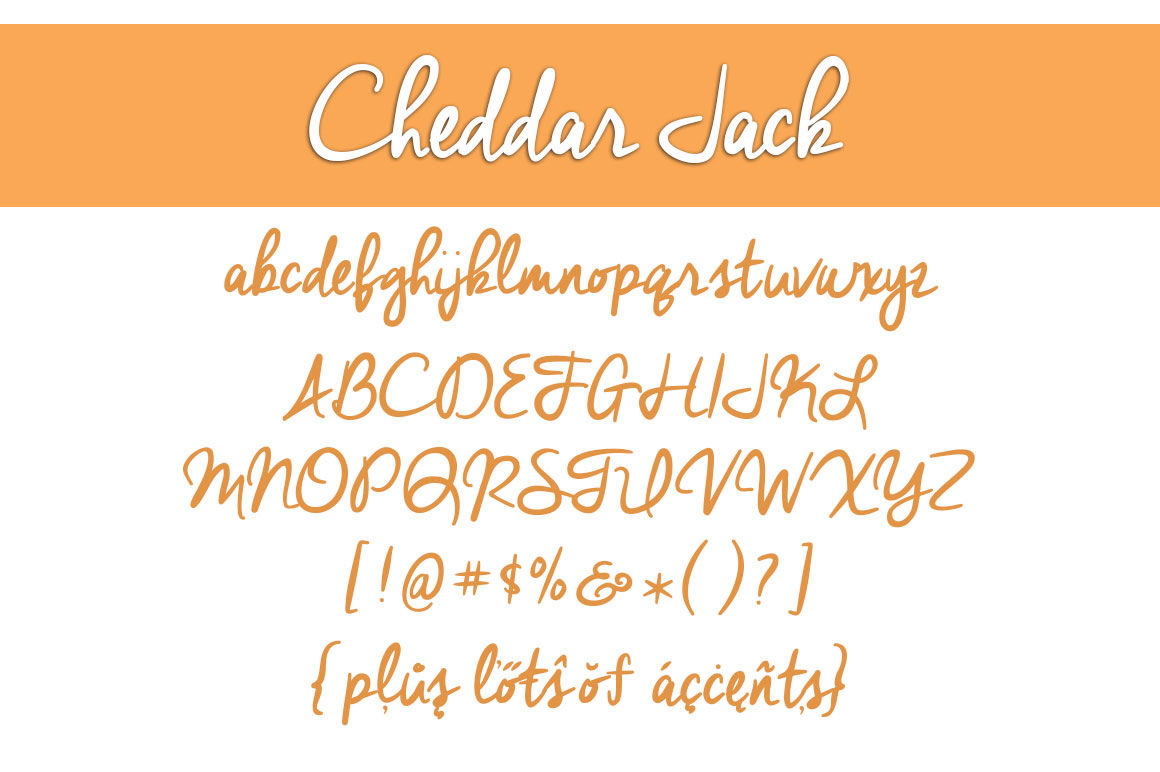
Introducing the Cheddar Jack Font! This fantastic calligraphic handwritten typeface was created by Brittney Murphy. It features crisp lines and humanist letter forms.
This typeface has a great texture that when used with signerica font creates stylish designs. You can easily make different templates for your websites.